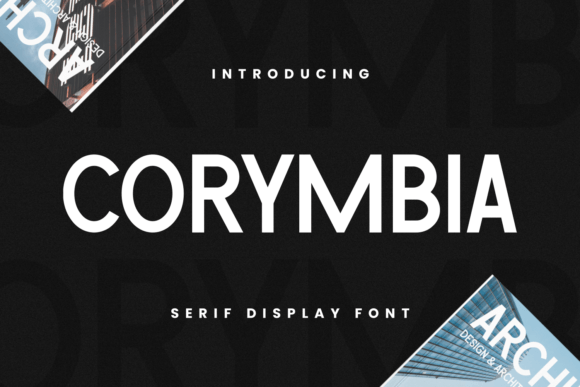
Introducing Corymbia: The Epitome of Sophisticated Sans Serif Design
Embark on a typographic odyssey with Corymbia, an extraordinary sans serif font that captivates with its inherent elegance, sinuous curves, and captivating ligatures. This masterpiece of digital artistry transforms your creations into expressions of true beauty and allure.
Immerse yourself in a world of visual harmony, where Corymbia's adaptable nature shines in both grand and intimate settings. Whether you're crafting a striking logo, an unforgettable invitation, or a captivating brand identity, this font rises to every challenge with grace and precision.
Express your individuality with a font that reflects your unique vision. Corymbia's versatility extends far beyond the realm of logos, beckoning you to explore its potential in a myriad of creative endeavors. Unleash your imagination and utilize it for magazine layouts, photography projects, greeting cards, product packaging, and even social media posts.
With Corymbia as your creative companion, the possibilities are endless. Its timeless aesthetic seamlessly complements personal projects, studio designs, corporate communications, and agency ventures. It's the perfect font for businesses of all sizes, industries, and aspirations, empowering you to leave a lasting impression that speaks volumes about your dedication to excellence.
Step into the spotlight with Corymbia, the font that elevates your designs to new heights. Let its refined curves and expressive ligatures captivate your audience, leaving them spellbound by the sheer brilliance of your creations. Discover the limitless potential that awaits you when you embrace Corymbia's allure.